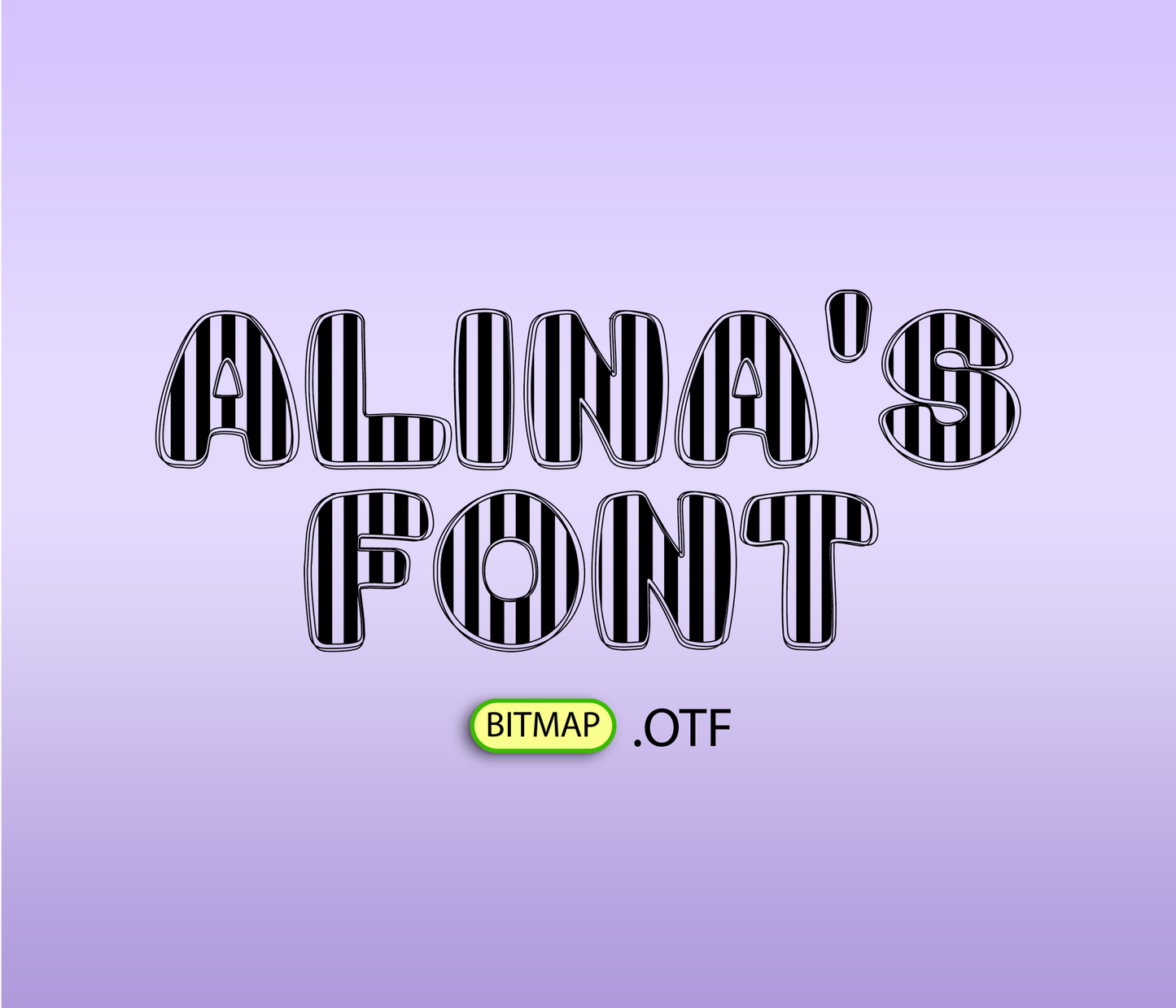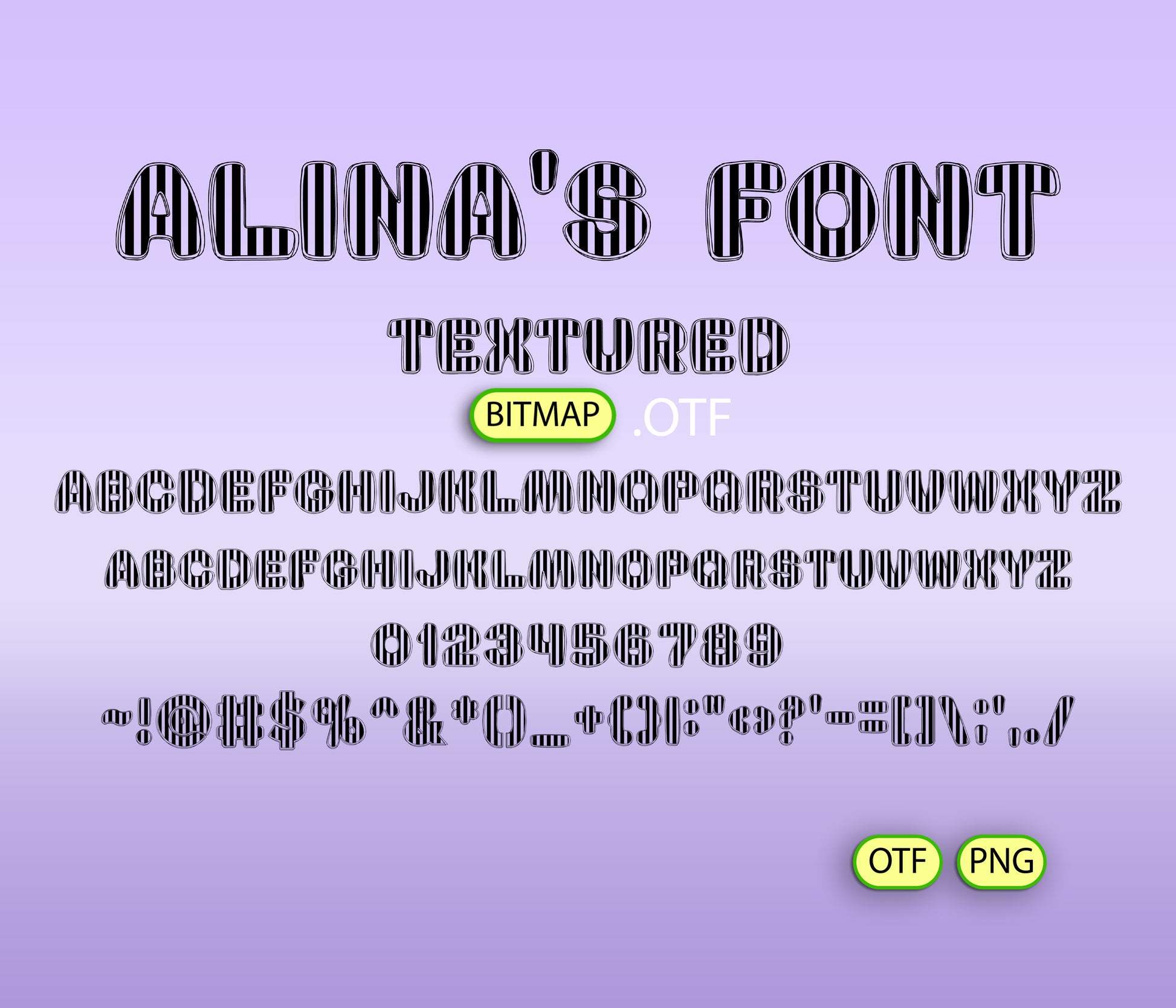
Macabre Family Pattern Font
Eccentric Clan Textured Font: A Macabre Family Legacy
Delve into the haunting elegance of an unconventional family with the Eccentric Clan Textured Font. Adorned with patterns inspired by a dark and witty young protagonist, each character in this font echoes the eerie allure synonymous with a peculiar lineage. This font is an artisan's gateway to a gothic realm, enriching cake toppers, birthday invitations, or unique t-shirt designs with a touch of mysterious charm.
Perfect for projects that celebrate the quirky and the macabre, this font captures the essence of a family known for their love of all things dark and unusual. Whether you're designing for a themed event, creating merchandise inspired by gothic tales, or simply want to add a touch of eccentric elegance to your work, the Eccentric Clan font offers a perfect blend of sophistication and spookiness.
Let your creativity wander through the halls of an imaginary haunted mansion as you craft designs that are as intriguing and complex as the characters that inspired this font. Each letter becomes a miniature work of art, telling its own story within the larger narrative of your design.
Unravel a narrative of gothic grace with the Eccentric Clan Textured Font, and let the mysterious elegance of an unconventional family resonate in your creative ventures.